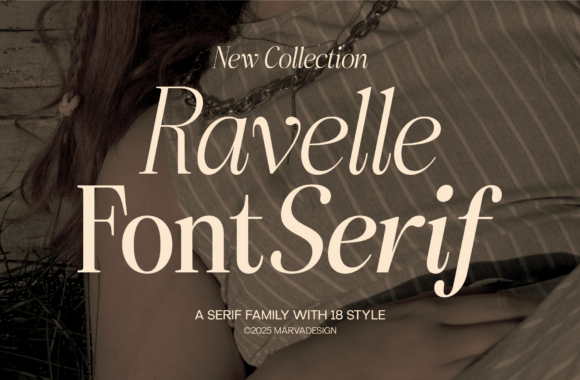
Ravelle Font: Elevate Your Designs with Elegance and Sophistication
In the world of typography, a well-crafted font can make all the difference in creating visually stunning designs. Introducing Ravelle Font, a new family of serif typefaces that seamlessly blends classic design with modern aesthetics. With its refined and timeless appearance, Ravelle is poised to become a go-to choice for designers seeking elegance and sophistication.
The Design Philosophy of Ravelle Font
Ravelle Font is built on the principles of balance and harmony. Its design combines thick and thin strokes in a graceful balance, creating a sense of luxury and professionalism. The subtle curves and sharp serifs work in tandem to produce a distinctive visual appeal that is both refined and sophisticated.
At the heart of Ravelle’s design philosophy is a commitment to versatility. The font family includes a range of weights, from Thin to Black, offering designers the flexibility to create unique typographic compositions for diverse design applications. Whether you’re working on editorial designs, branding, invitations, or other premium projects, Ravelle has the perfect weight to suit your needs.
Key Features of Ravelle Font
- Elegant and Sophisticated Design: Ravelle’s classic design with modern aesthetics makes it perfect for high-end projects.
- Variety of Weights: With 18 different styles, ranging from Thin to Black, Ravelle offers flexibility and versatility.
- High Contrast and Delicate Details: The font’s high contrast and delicate details make it suitable for editorial designs, branding, and other premium projects.
- Subtle Curves and Sharp Serifs: Ravelle’s subtle curves and sharp serifs create a sense of luxury and professionalism.
- Enhanced Readability: The font’s stylish and expressive nature enhances readability while maintaining a distinctive visual appeal.
Applications of Ravelle Font
Ravelle Font is designed to be versatile and adaptable, making it suitable for a wide range of design applications. Some of the ideal uses for Ravelle include:
- Editorial Designs: Ravelle’s elegant and sophisticated design makes it perfect for use in magazines, newspapers, and other editorial projects.
- Branding: The font’s luxurious and professional feel makes it an excellent choice for branding and corporate identity projects.
- Invitations and Events: Ravelle’s refined and timeless appearance makes it ideal for use in invitations, weddings, and other events.
- Packaging and Advertising: The font’s high contrast and delicate details make it suitable for use in packaging and advertising projects.
The Benefits of Using Ravelle Font
By choosing Ravelle Font for your design projects, you can enjoy a range of benefits, including:
- Enhanced Visual Appeal: Ravelle’s elegant and sophisticated design is sure to elevate your designs and make them stand out.
- Increased Versatility: With 18 different styles, Ravelle offers flexibility and versatility, making it perfect for a wide range of design applications.
- Improved Readability: The font’s stylish and expressive nature enhances readability, making it easier for your audience to engage with your content.
- Professional and Luxurious Feel: Ravelle’s luxurious and professional feel makes it an excellent choice for high-end projects and premium brands.
In conclusion, Ravelle Font is a game-changer for designers seeking elegance and sophistication in their typography. With its refined and timeless appearance, versatile design, and range of weights, Ravelle is poised to become a go-to choice for designers around the world. Whether you’re working on editorial designs, branding, invitations, or other premium projects, Ravelle Font is the perfect choice for elevating your designs and making them stand out.
- What is Ravelle Font?: Ravelle Font is a new family of serif typefaces that combines classic design with modern aesthetics.
- What are the key features of Ravelle Font?: Ravelle Font features a range of weights, subtle curves and sharp serifs, high contrast and delicate details, and enhanced readability.
- What are the ideal uses for Ravelle Font?: Ravelle Font is suitable for editorial designs, branding, invitations, packaging, and advertising projects.
- How many styles does Ravelle Font come in?: Ravelle Font comes in 18 different styles, ranging from Thin to Black.